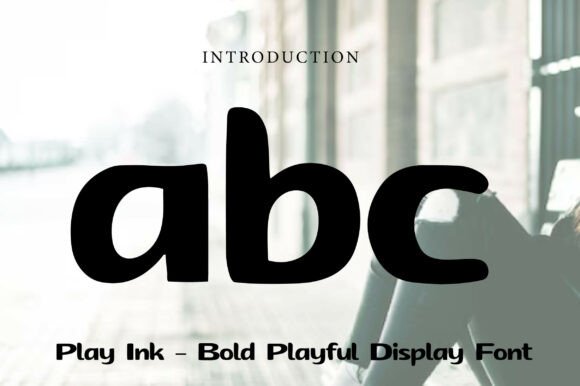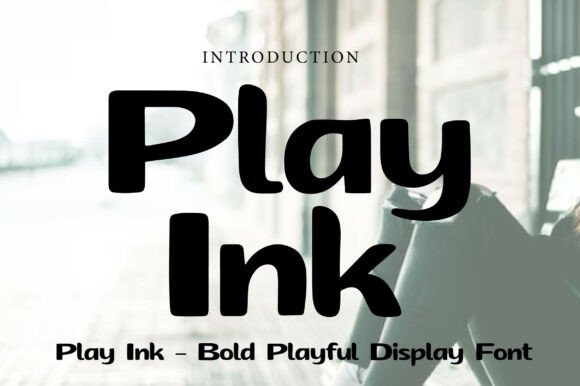
Introduction to Play Ink Font
Adorn your designs with a touch of vibrancy and liveliness with Play Ink – the bold, playful display font.
Designed with a fun, animated essence and wrapped in soft rounded style, this delightful typeface is ideal for everything from children’s project designs to radiant branding endeavors With Play Ink, any design project can benefit from a sparkling touch of vivacious creativity.